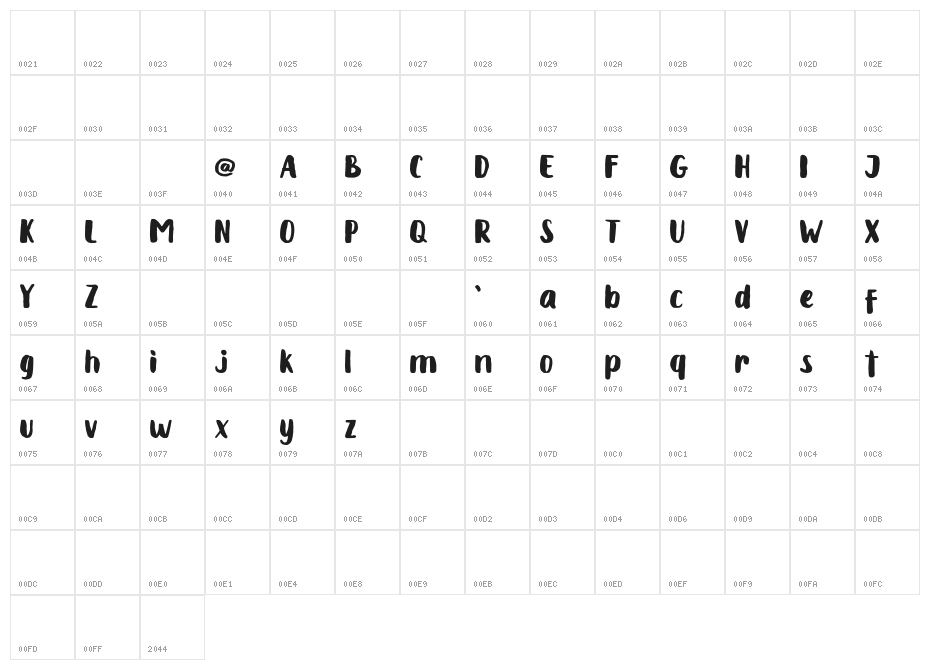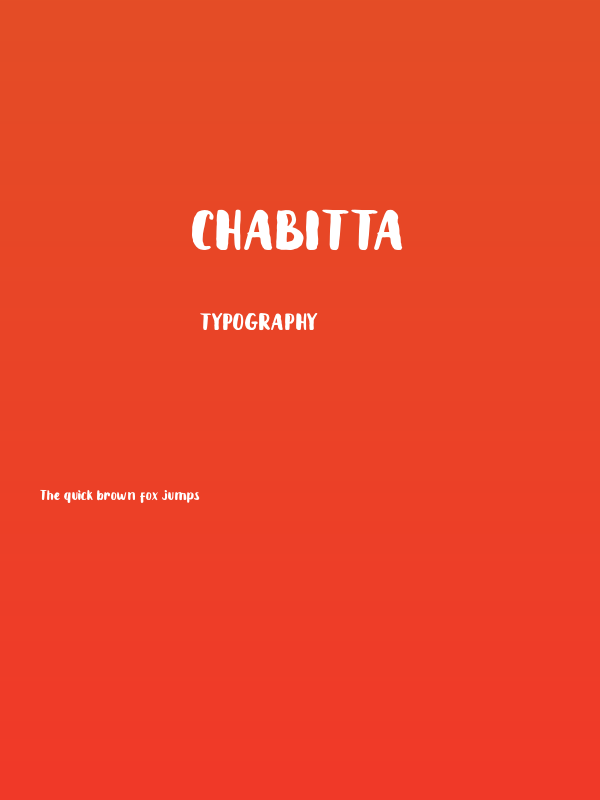
Chabitta Font
Chabitta Description
This font features a bold, hand-drawn style with a playful and organic feel. The letters have a brush-like texture, giving them a dynamic and lively appearance. The strokes are thick and uneven, adding to the casual and informal vibe. The uppercase and lowercase letters maintain a consistent style, with rounded edges and a slightly irregular baseline. This font exudes a sense of creativity and spontaneity, making it suitable for projects that aim to convey a fun and approachable tone. The numbers and special characters are designed to match the overall aesthetic, ensuring a cohesive look across all text elements.
| Proposed Projects | Ideal for children's books, creative posters, branding for playful products, and social media graphics. |